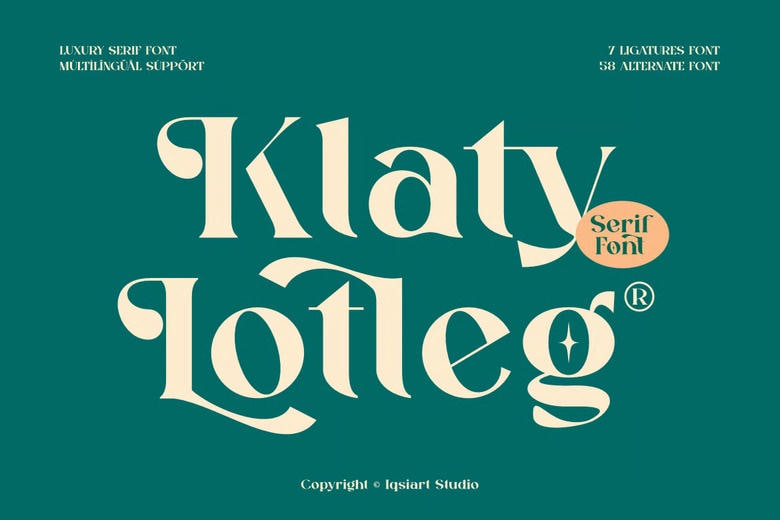
Klaty Lotleg Font
Klaty Lotleg is a serif display font with an authentic look that works well for many design projects. We have a wide selection of themes and font styles. Visit our profile to see more and find the right style for your project.
Klaty Lotleg Serif Font